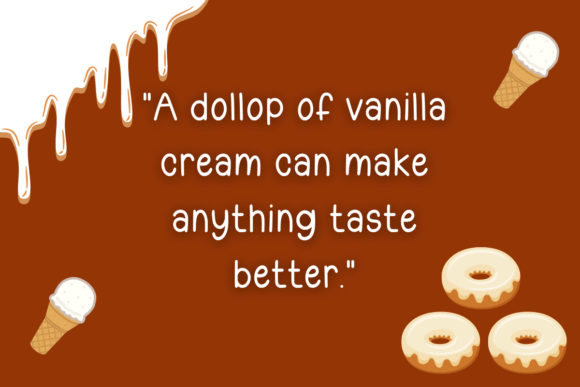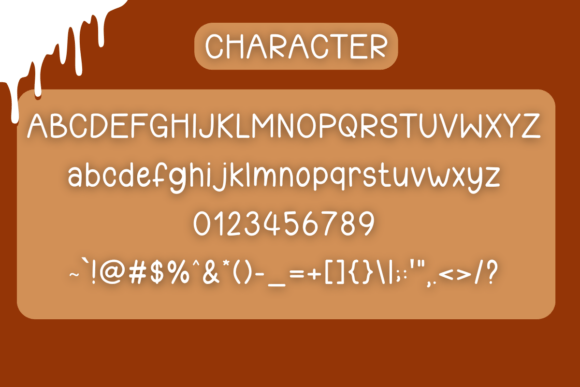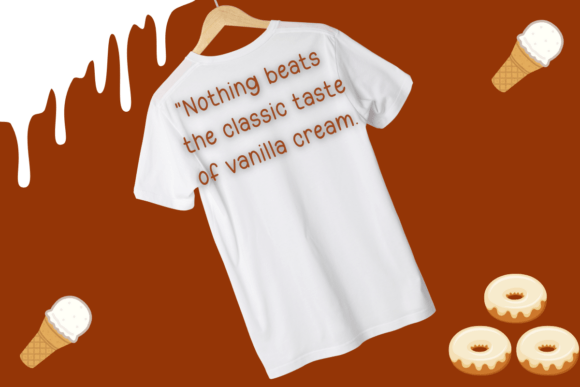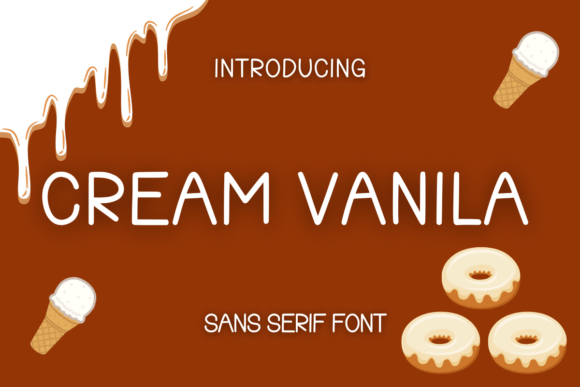
Introduction to Cream Vanila Font
Cream Vanila is a fun sans serif font.
A font suitable for memos, journals, notes, planners, interior KDPs, cards, invitations, scrapbooks and many other creative ideas Apart from that, it is also suitable for cardinals, Christmas, Halloween, Buddhist, Thanksgiving, funky, fall, laser, mini calendars, laser cut, tumbler wrap, seamless patterns, basketball, zodiac, mockups, t-shirts, quotes, tarot.